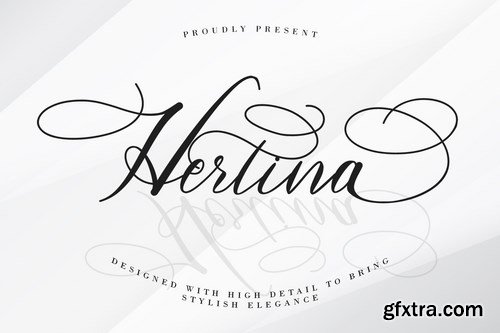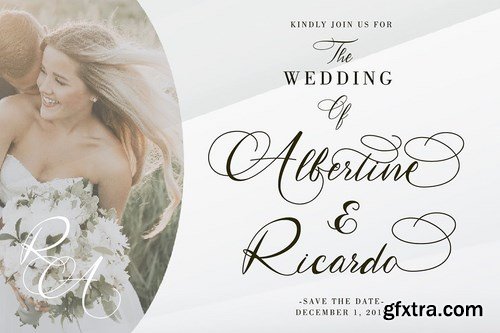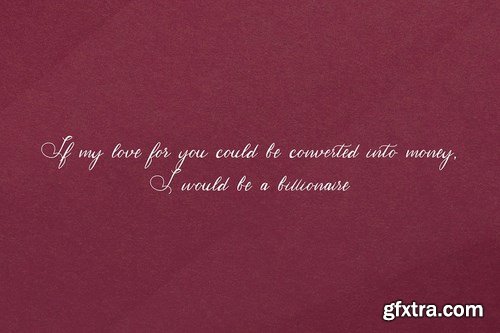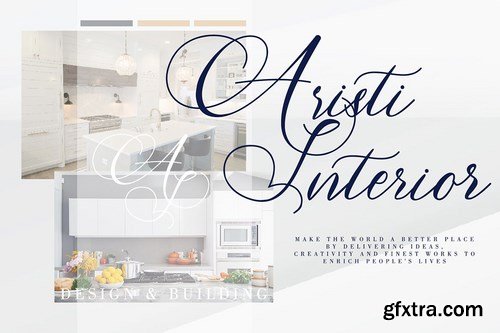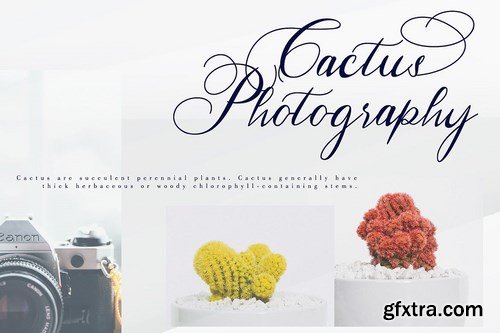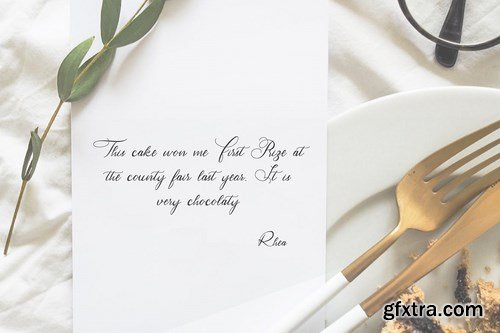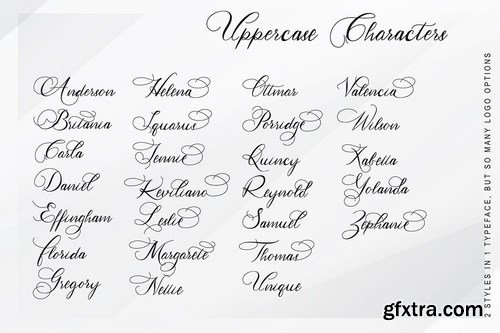
Hertina designed With High Detail To Bring Stylish Elegance. this font is for those who are in need of an elegant and appropriately modern calligraphy script. that are also beautiful. ! This font is PUA encoded which means you can access all of the awesome glyphs with ease! It also features a wealth of special features including ligatures, titling and swash.